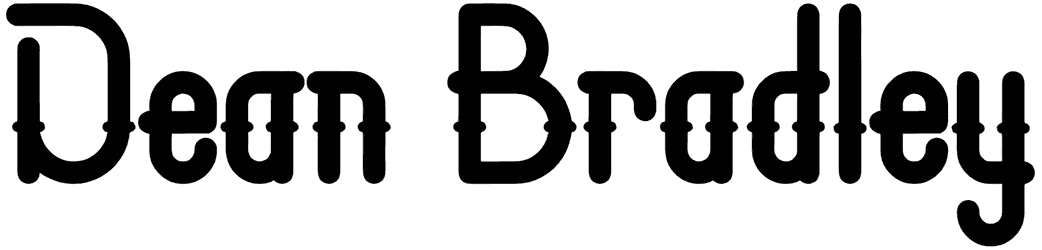
Dean Bradley Font
Dean Bradley is a fancy, vintage font that works well for making bold statements. The font’s sharp geometric forms and striking style make a strong first impression.